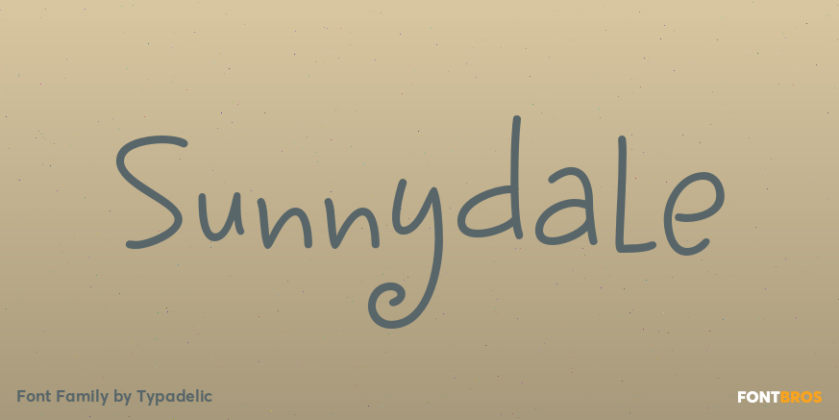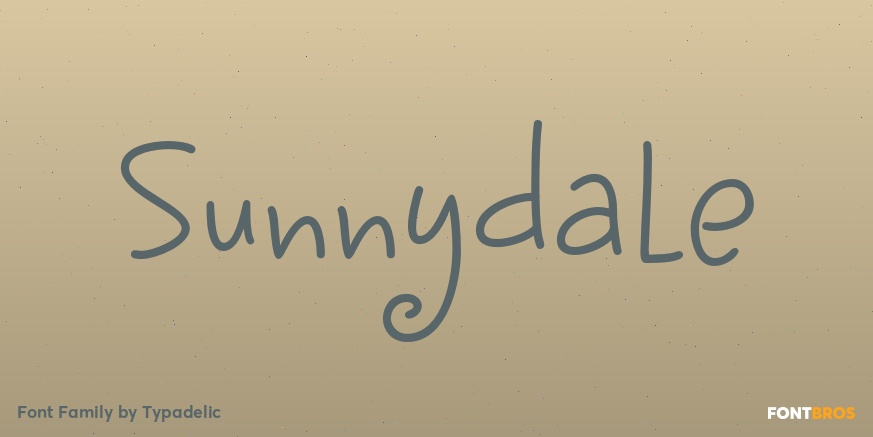
Sunnydale
About Sunnydale
Sunnydale really is a sweet little typeface, great for scrapbooking or any design where you\’re wishing to convey a friendly, casual message.